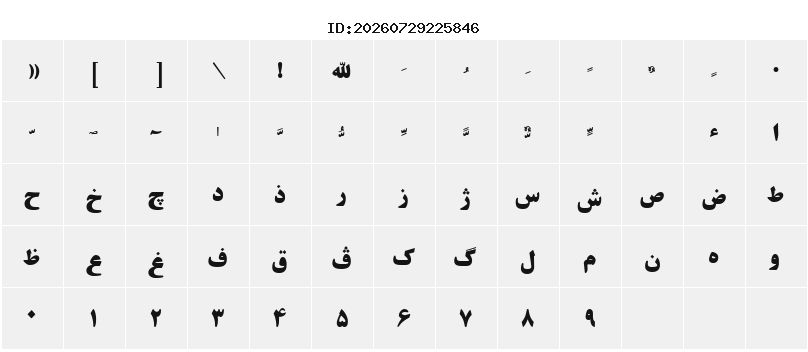
Khorshid Preview
• Font Name: Khorshid
• Full Font Name: Khorshid Font
About Khorshid.ttf
Khorshid.ttf is a modern, elegant sans-serif font designed for ultimate readability and visual harmony. Perfect for branding, headlines, web design, and print materials.